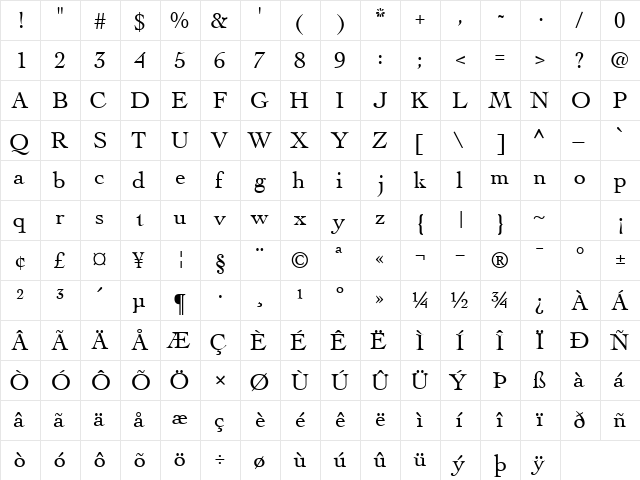
ThesisSSK Regular
Design Context for ThesisSSK Typeface
ThesisSSK takes a measured approach to typography — its balanced proportions and neutral character make it a reliable workhorse for both digital and print work.